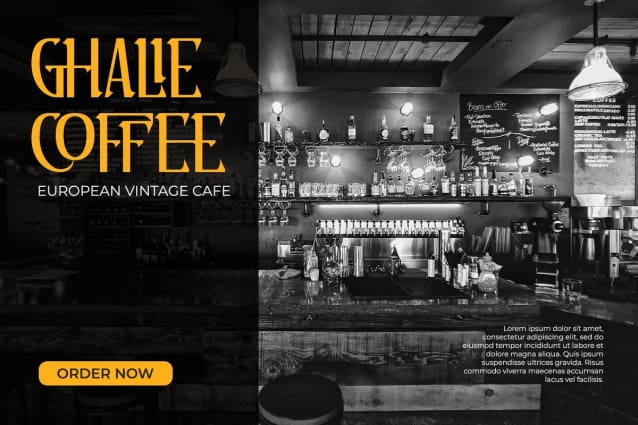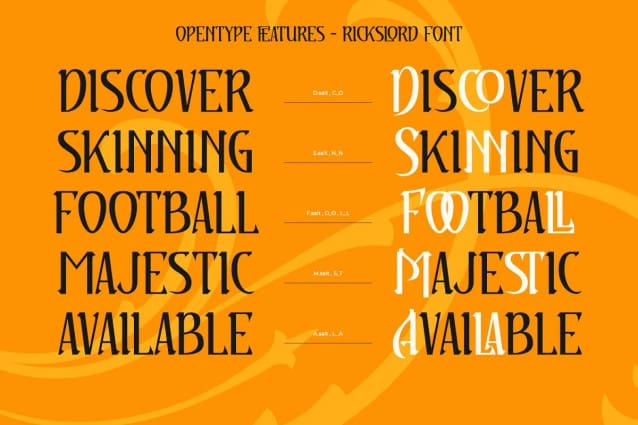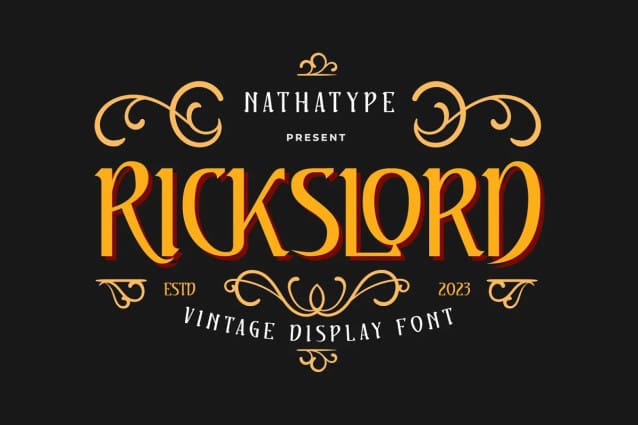
Rickslord Display Font
Rickslord Display Font is an uppercase display font that transports you back in the early 20th century. This font is a proof of the elegance of a bygone era. Besides that, Rickslord still manages to maintain a modern edge.
The most striking characteristic of Rickslord is its unique contrast. Some characters display high contrast between thick and thin strokes, creating a dramatic visual impact, while others maintain a more consistent weight for a balanced appearance. As a bonus, this font includes beautiful ornaments. In addition, enjoy the features here.